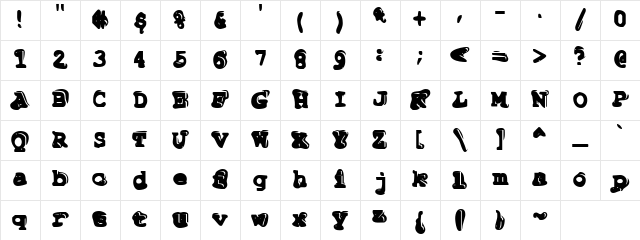
Complete Tiptonian Regular glyph index. Displaying only characters natively supported by Tiptonian Regular font.
Tiptonian is a composed and adaptable typeface that performs quietly and consistently across a wide range of design contexts.